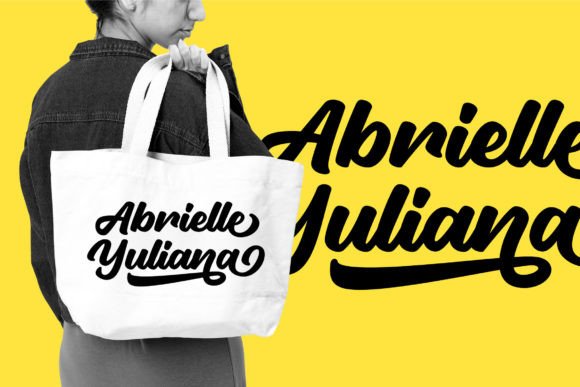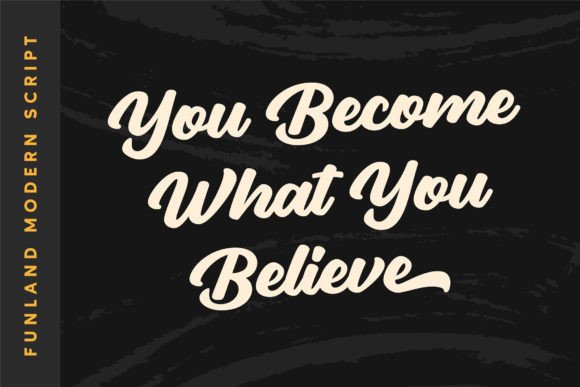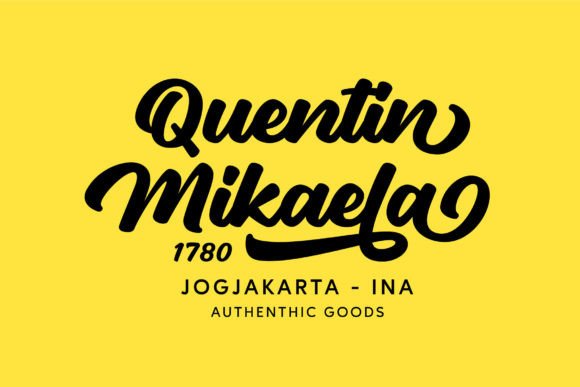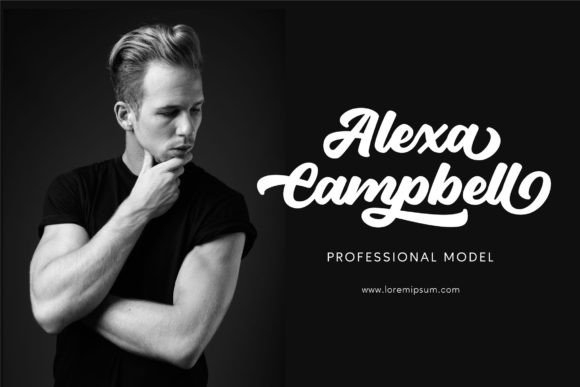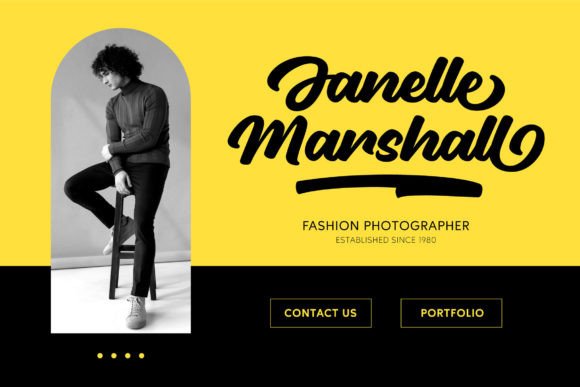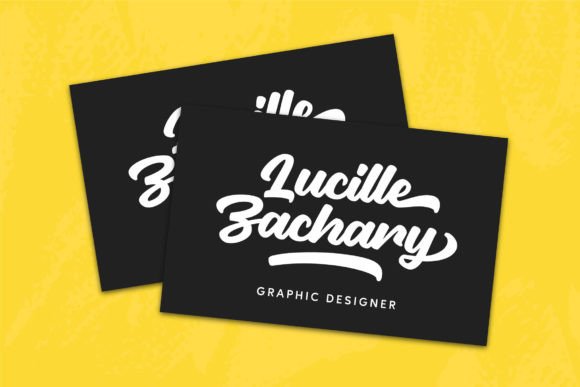
Introducing Funland Font: The Perfect Handwritten Touch for Your Designs
Are you a designer or crafter looking for a unique and elegant font to add a personal touch to your creations? Look no further than Funland Font! This charming font is perfect for a variety of design projects, from wedding invitations and greeting cards to logos and business cards. In this article, we’ll take a closer look at Funland Font and explore its features, benefits, and uses.
A Font that Exudes Elegance and Charm
Funland Font is a beautifully crafted handwritten font that exudes elegance and charm. Its unique and flowing script makes it perfect for designs that require a personal and sophisticated touch. Whether you’re creating wedding invitations, thank you cards, or quotes, Funland Font is sure to impress. Its elegant strokes and curves add a touch of luxury to any design, making it ideal for high-end brands and creative projects.
Versatile and Easy to Use
One of the best things about Funland Font is its versatility. It’s easy to use and can be applied to a wide range of design projects, including:
- Quotes and inspirational posters
Why Choose Funland Font?
So, why choose Funland Font over other fonts? Here are just a few reasons:
- Unique and elegant design: Funland Font has a unique and elegant design that will add a touch of sophistication to any project.
- High-quality and legible: The font is high-quality and legible, making it perfect for both print and digital designs.
- Easy to use: Funland Font is easy to use and requires no special design skills.
- Versatile: The font can be used for a wide range of design projects, from wedding invitations to logos and branding materials.
Tips for Using Funland Font
Here are a few tips for using Funland Font in your designs:
- Use it for headings and titles: Funland Font is perfect for headings and titles, where you want to make a statement and add a touch of elegance.
- Pair it with other fonts: Funland Font can be paired with other fonts to create a unique and interesting design.
- Experiment with colors and textures: Don’t be afraid to experiment with different colors and textures to add depth and interest to your design.
In conclusion, Funland Font is a beautiful and elegant handwritten font that’s perfect for designers and crafters. Its unique and flowing script makes it ideal for a wide range of design projects, from wedding invitations to logos and branding materials. With its high-quality and legible design, ease of use, and versatility, Funland Font is a must-have for anyone looking to add a personal and sophisticated touch to their creations.